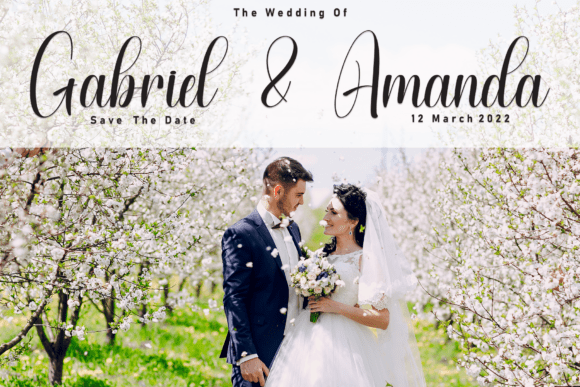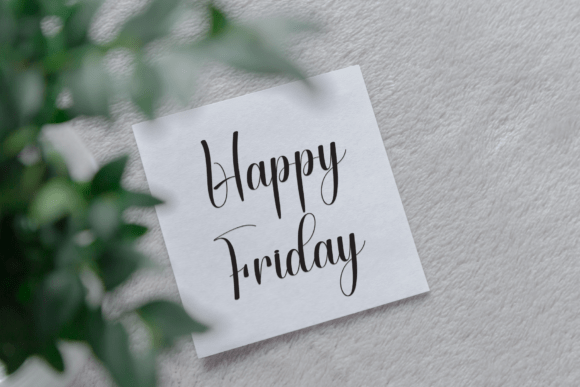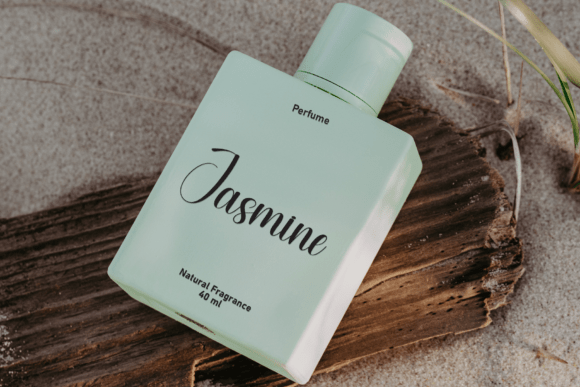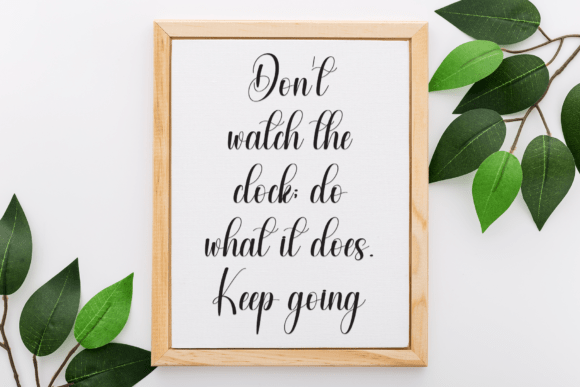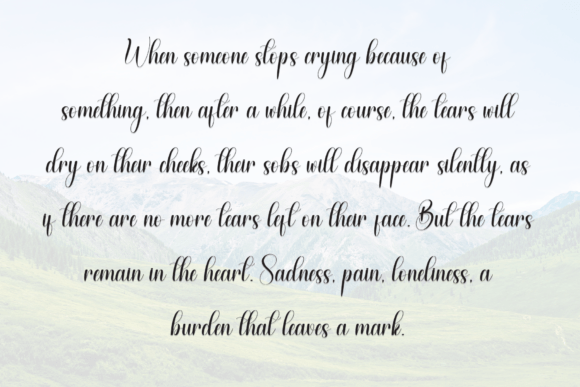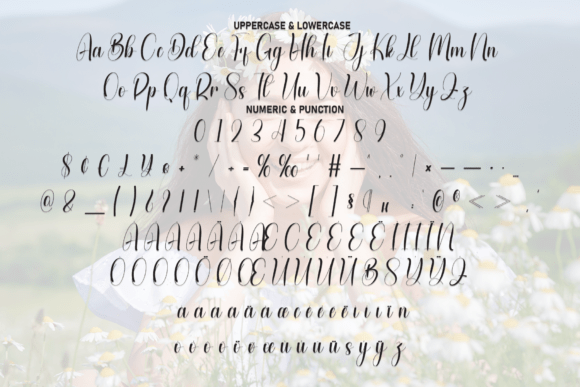
Discover the Magic of Beautiful Font
Have you ever found yourself scribbling away in a notebook, trying to convey a heartfelt message to a loved one? The feeling of putting pen to paper and watching your words come to life is one of the most rewarding experiences for any designer. It’s in these moments that we’re reminded of the beauty of handwritten typography.
Introducing Beautiful Font, a delightful display font that captures the essence of handwritten charm. Designed to evoke feelings of sweetness and vivacity, this font is perfect for wedding invitations, greeting cards, or any design that requires a playful and lively touch. For designers, Beautiful Font offers a valuable asset – a way to add a personal and enchanting touch to their work, turning simple messages into lovable pieces of art.
Key Features of Beautiful Font
- Font Family: Beautiful Font comes in a single font family with multiple weights, including Light, Regular, Medium, Bold, and Black.
- Font Size: The font is designed to be highly legible at various font sizes, from 8pt to 24pt, making it suitable for body text, headings, and titles.
- Resolution: Optimized for high-resolution displays, Beautiful Font supports resolutions up to 300 DPI, ensuring crisp and clear text even at high zoom levels.
- Language Support: Supports over 100 languages, including Latin, Cyrillic, Greek, and many others, making it a versatile font for global applications.
- Unique Characteristics: Beautiful Font features a unique blend of modern and classic elements, with a subtle flair that adds a touch of elegance to any design.
Designer Review: Beautiful Font
I recently had the chance to work with the Beautiful Font, and I have to say it’s a mixed bag. Here are my thoughts.
- Beautiful Font has a lovely, elegant feel to it, making it perfect for designs that require a touch of sophistication.
- The font is highly customizable, allowing me to adjust the weight, spacing, and other aspects to suit my design needs.
- It’s great for use in headings and titles, as the font really stands out and grabs the viewer’s attention.
- The font can be a bit too ornate for some designs, and may not be suitable for more minimalist or modern styles.
- It’s not the most legible font at smaller sizes, so I had to adjust the font size to ensure it was readable.
- Some characters in the font may not display correctly in certain situations, which can be frustrating.
Overall, I think Beautiful Font is a solid choice for the right projects, but it may not be the best fit for every design. With some careful planning and customization, it can be a beautiful addition to your designs.